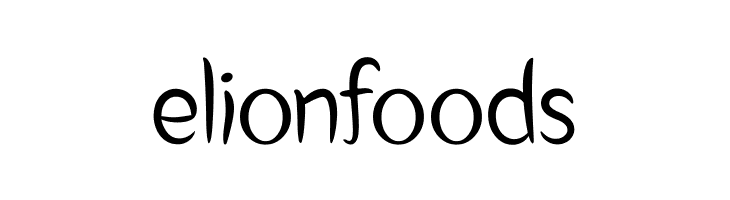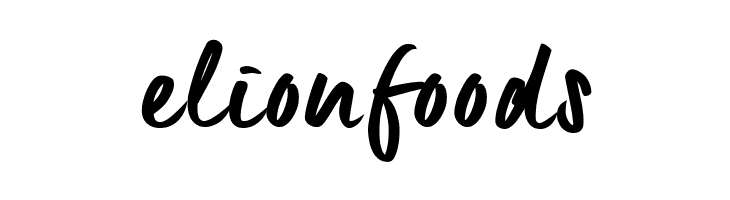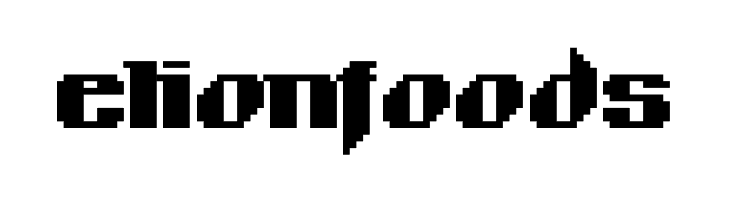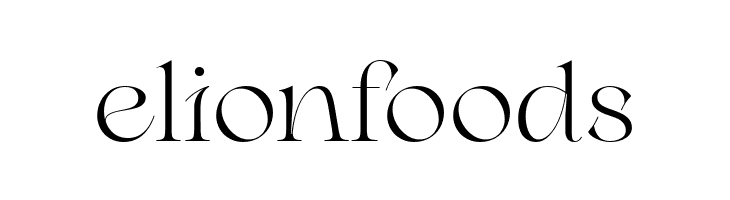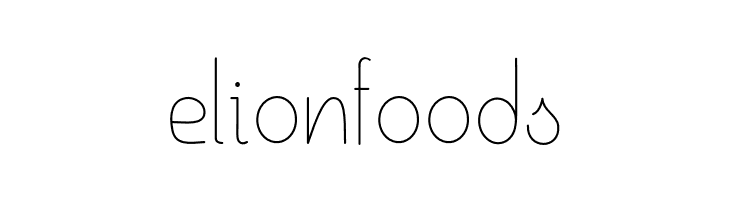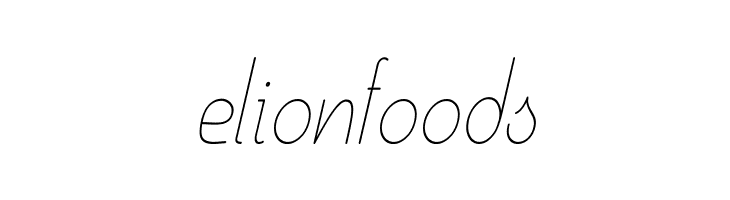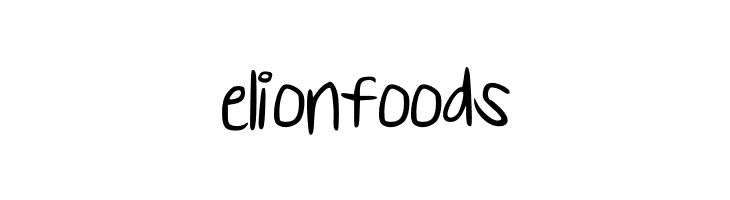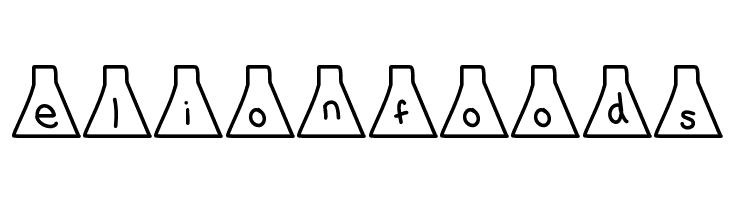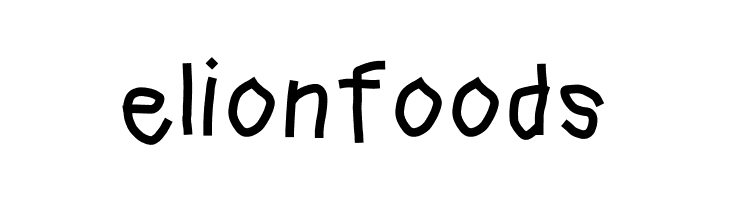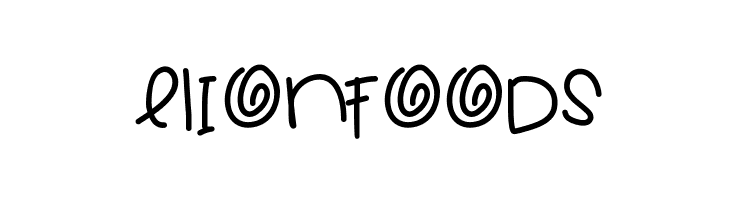
A mystical and esoteric font with angular, decorative letterforms.
A bold, angular font with a retro, digital aesthetic.
A sleek, minimalist font with thin, elongated letterforms and a modern aesthetic.
A modern, minimalist font with tall, narrow characters and thin strokes.
A sleek, italic font with elongated, thin characters and a modern aesthetic.
A sleek, italicized font with thin, elongated characters for a modern look.
A playful, handwritten font with quirky, irregular shapes and creative symbols.
A robust slab serif typeface with strong, block-like serifs and a modern aesthetic.
A medium-weight, italic slab serif font with classic and elegant features.
A pixelated, retro-style font with a blocky, digital appearance.
A bold, expressive handwritten font with fluid, connected strokes.
A playful and whimsical font with flowing, irregular strokes and dynamic movement.
A playful, bold font with hand-drawn, irregular characters in rough squares.
A playful, hand-drawn font with a casual and whimsical style.
A lively, handwritten-style font with a casual and personal touch.
A playful, handwritten font with bold, irregular characters and a casual style.
An elegant and sophisticated font with modern and classic elements.
An elegant serif font with high contrast and stylish, angular serifs.
A playful, hand-drawn font with a whimsical and dynamic style.
A playful, hand-drawn font with a whimsical and artistic style.
A playful, hand-drawn font with tall, narrow letters and quirky details.
A fluid and dynamic handwritten font with smooth, flowing strokes.